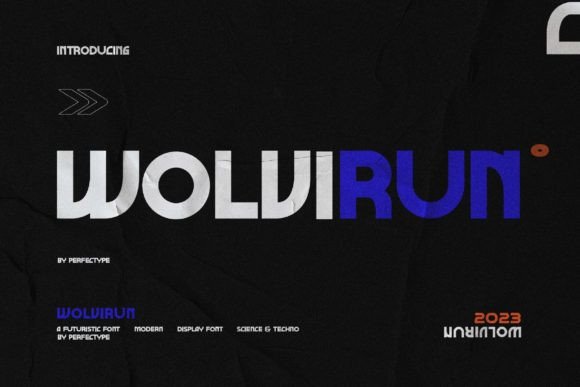
Introducing Wolvirun Font, a modern and unique sans serif font family that breathes life into your digital creations. Perfectype, the artistic mind behind this masterpiece, has crafted a font oozing with modernity and originality, transforming your words into captivating visual expressions.
Feel the future unfold as you unleash your creativity with Wolvirun. Its carefully designed characters dance across the screen, creating a visual symphony that resonates with your audience. Let your imagination run wild as you explore the endless possibilities that await.
Effortlessly elevate your branding, web designs, and editorial projects with the stroke of a key. Wolvirun's versatility adapts seamlessly to any design landscape, enhancing your message with an air of sophistication and elegance. Its natural writing style effortlessly blends with your content, creating typographic harmony that captivates and engages.
Picture the allure of wedding invitations adorned with Wolvirun's graceful curves or the delicate charm of romantic cards embellished with its elegant strokes. Imagine the impact of logotypes that radiate boldness and distinction, demanding attention in a crowded digital world. With Wolvirun, your designs transcend the ordinary, leaving an unforgettable impression.
Unleash your creativity and let Wolvirun transform your ideas into visual masterpieces. Its versatility lends itself effortlessly to a myriad of applications. Whether you're crafting beautiful prints or handmade crafts, designing enchanting quotes or adding a personal touch to product labels and packaging, Wolvirun amplifies your vision, making it shine brighter than ever before.
Step into the realm of boundless imagination and experience the magic of Wolvirun. Watch as your designs come alive, captivating hearts and minds with their inherent beauty and timeless appeal. Embrace the future of typography and elevate your creative endeavors to new heights.